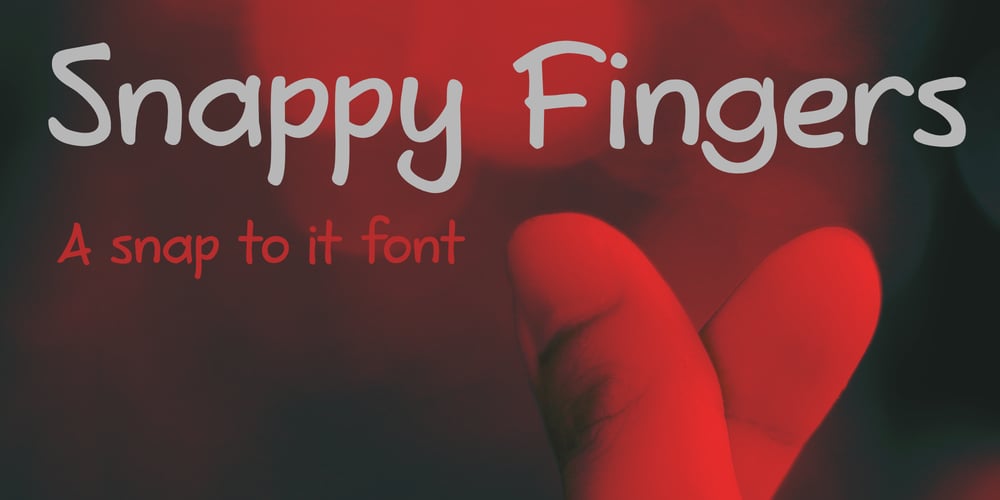
Snappy Fingers Font Family was designed by David Kerkhoff and published by Kitchen Table Type Foundry. Snappy Fingers contains 2 styles and family package options. Description: Snappy Fingers is a remake of a really old font, called Joe Schmoe, which I made for my other foundry years ago. I really like this font, but it needed a lower case and some serious tweaking.Snappy Fingers is a fun, handwritten font. I (now) comes with fantastic language support and a new lease on life!